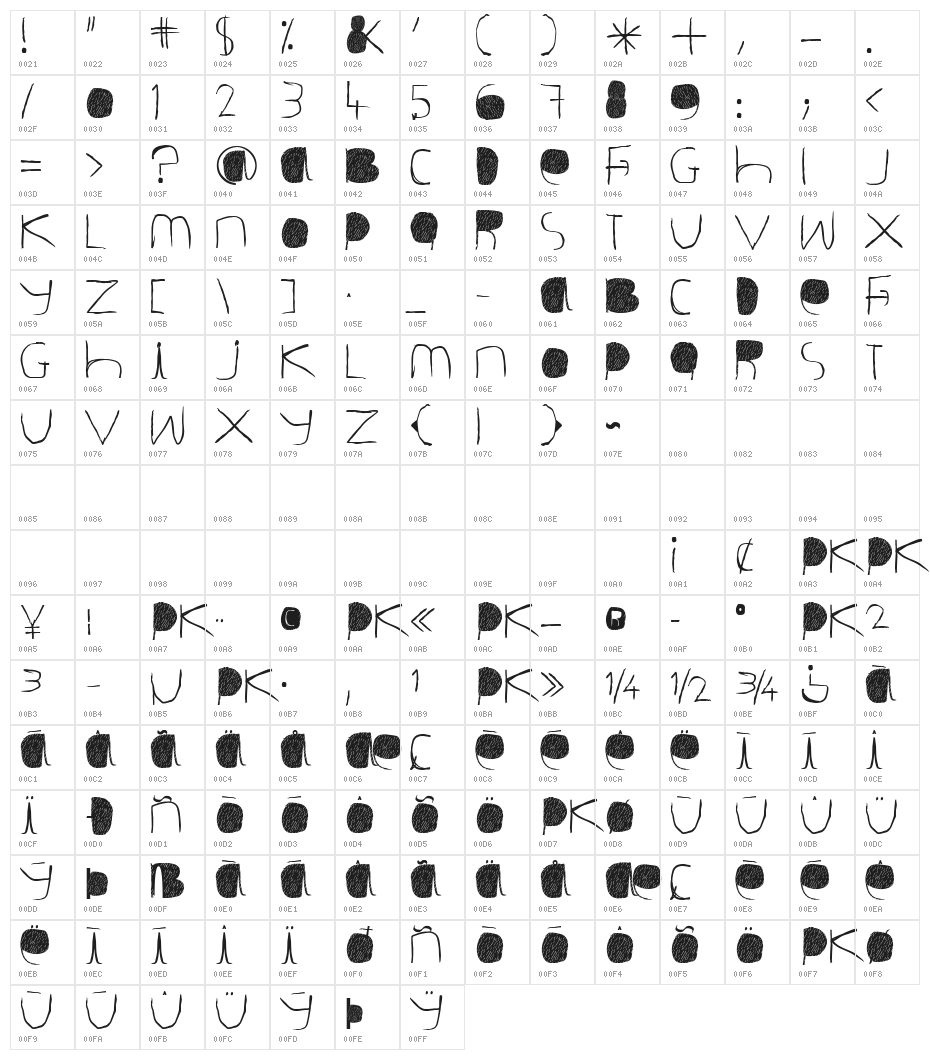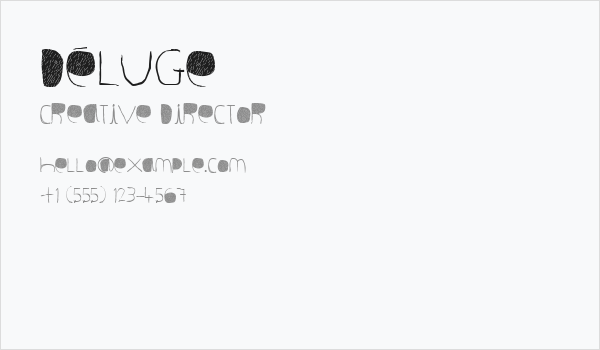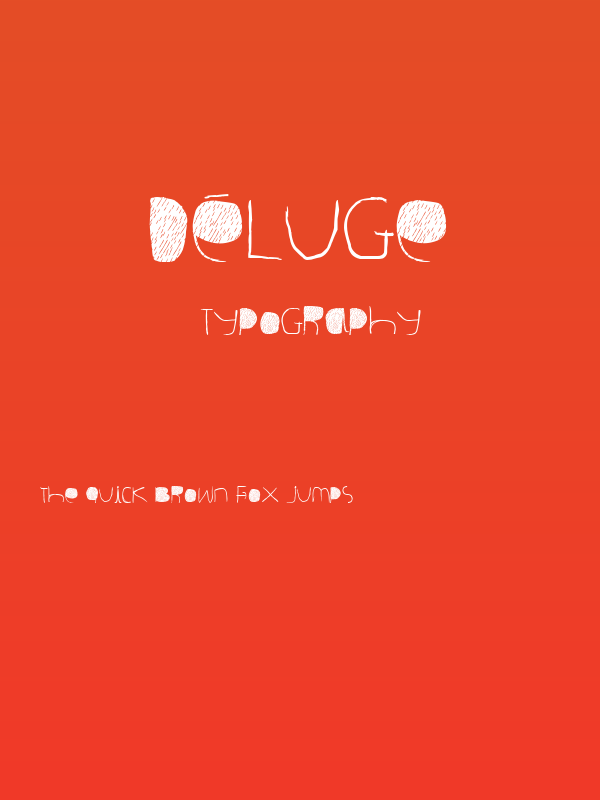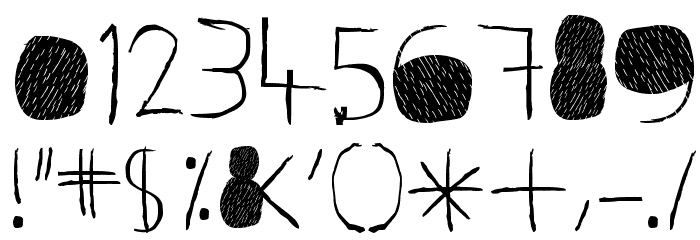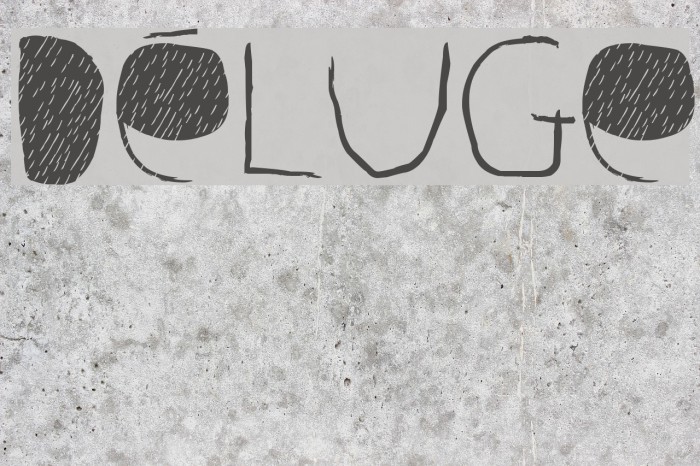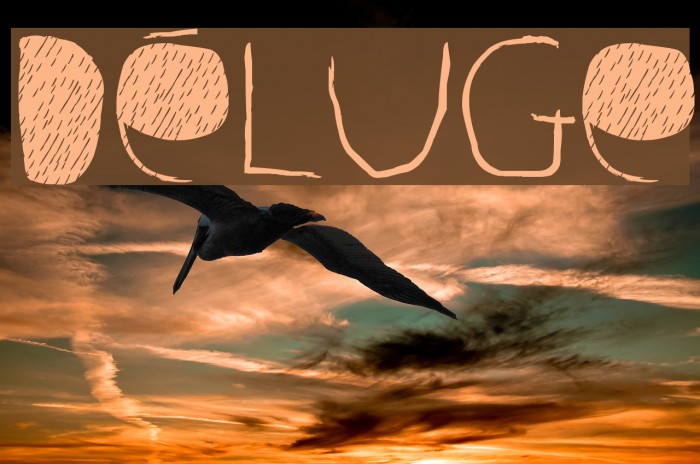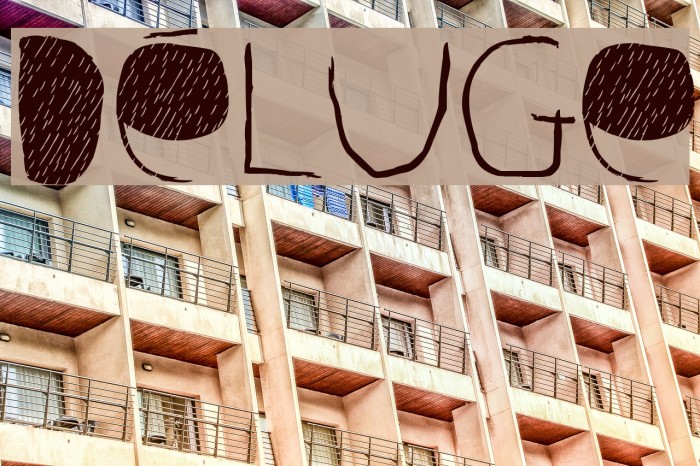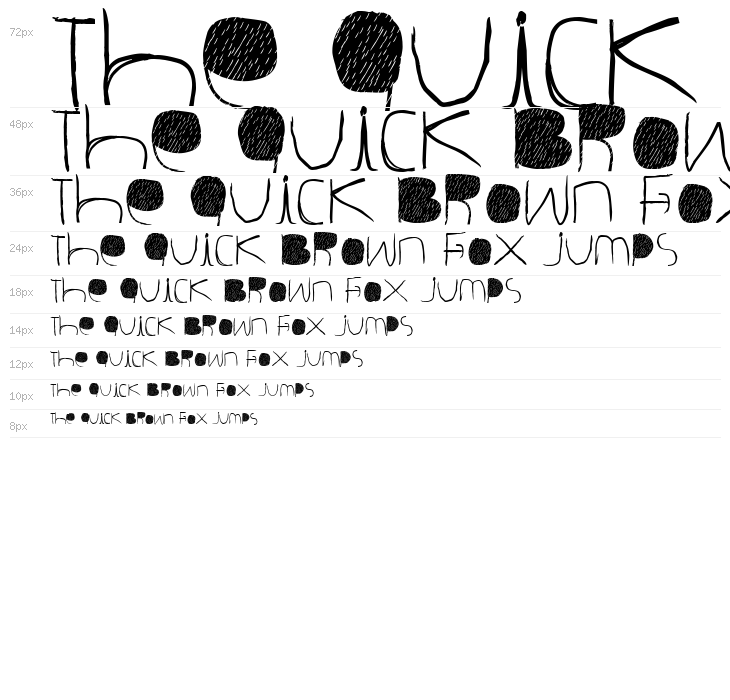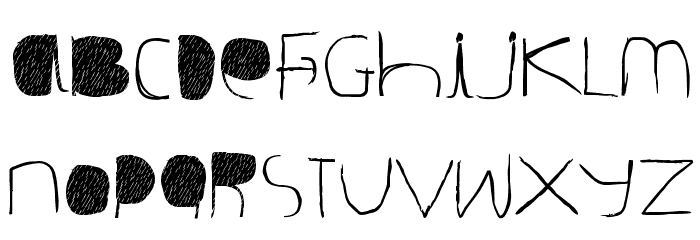
Déluge Font
Déluge Description
This font features a unique and artistic style, characterized by its hand-drawn appearance. The letters are uneven and irregular, giving it a playful and whimsical feel. The strokes vary in thickness, with some letters appearing bold and others more delicate. This creates a dynamic and textured look, reminiscent of sketching with a pen or marker. The uppercase and lowercase letters maintain a consistent style, with quirky and unexpected shapes that add to its charm. Numbers and special characters follow the same artistic approach, making the font versatile for creative projects.
| Use Case | Logos, Posters, Creative projects |
| Proposed Projects | Ideal for artistic projects, children's books, creative posters, and unique branding. |